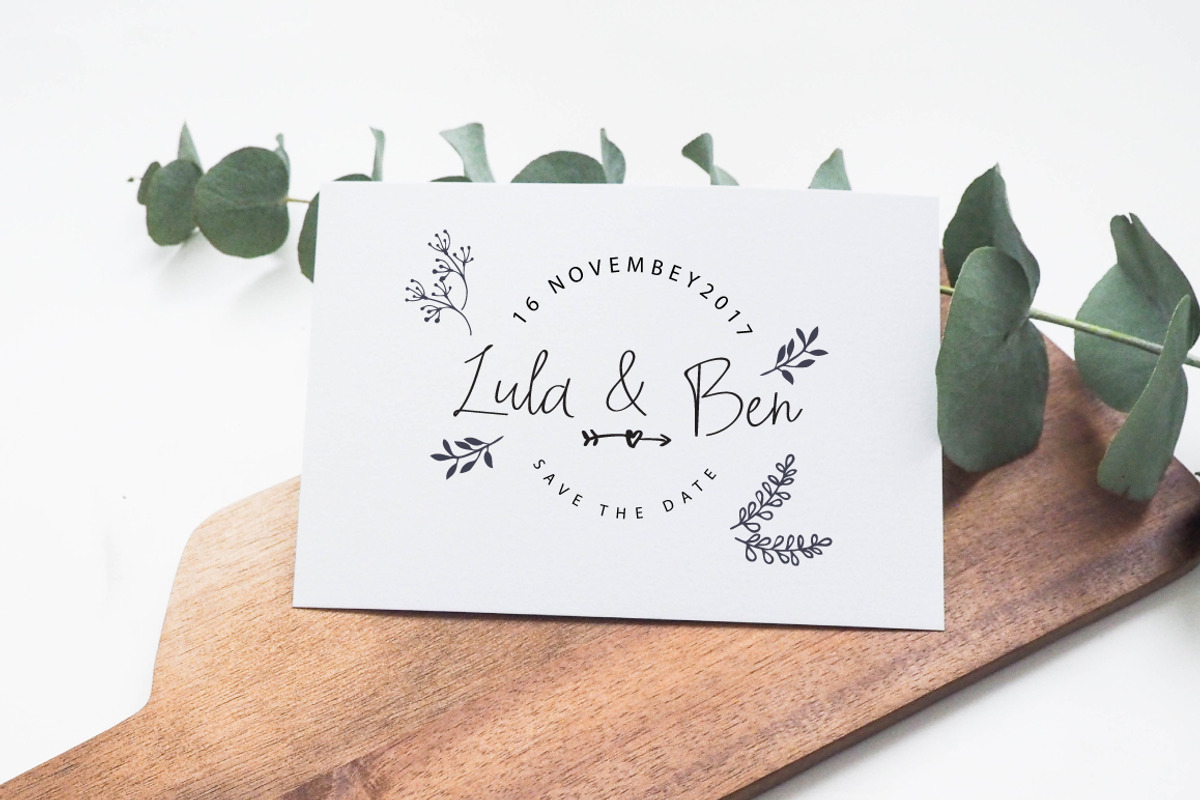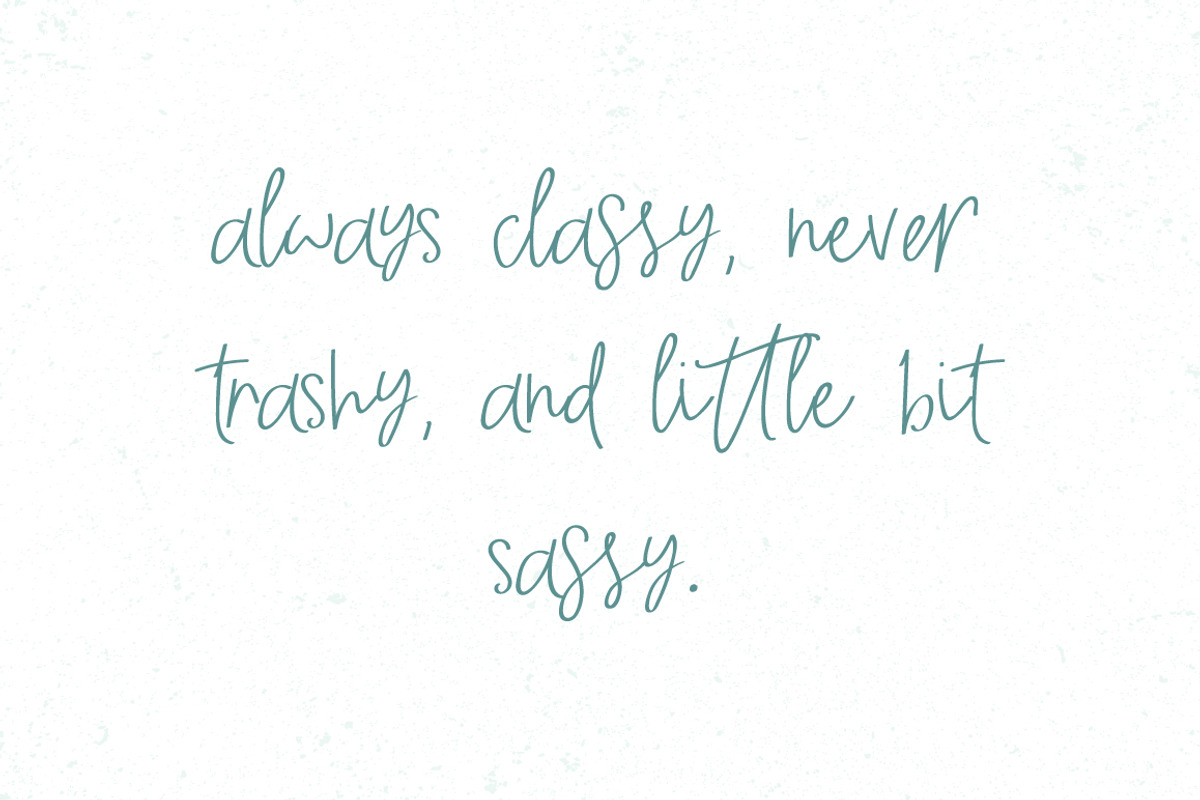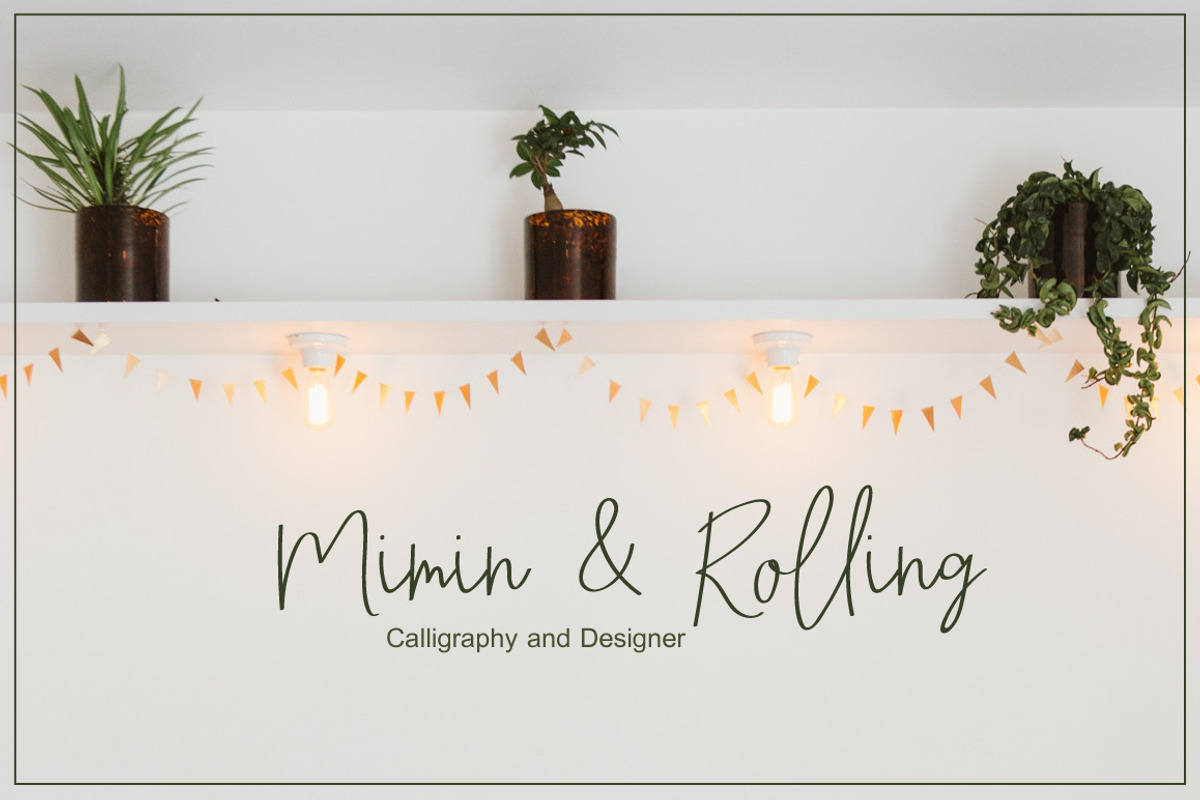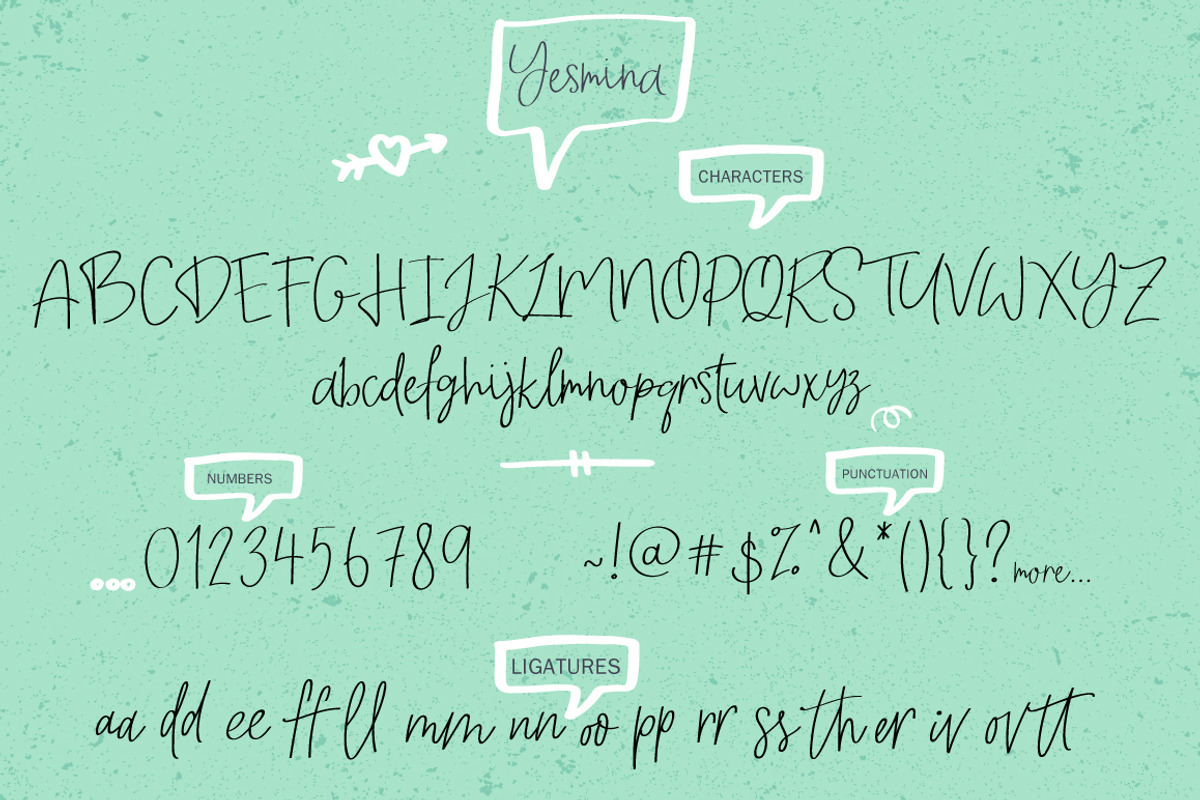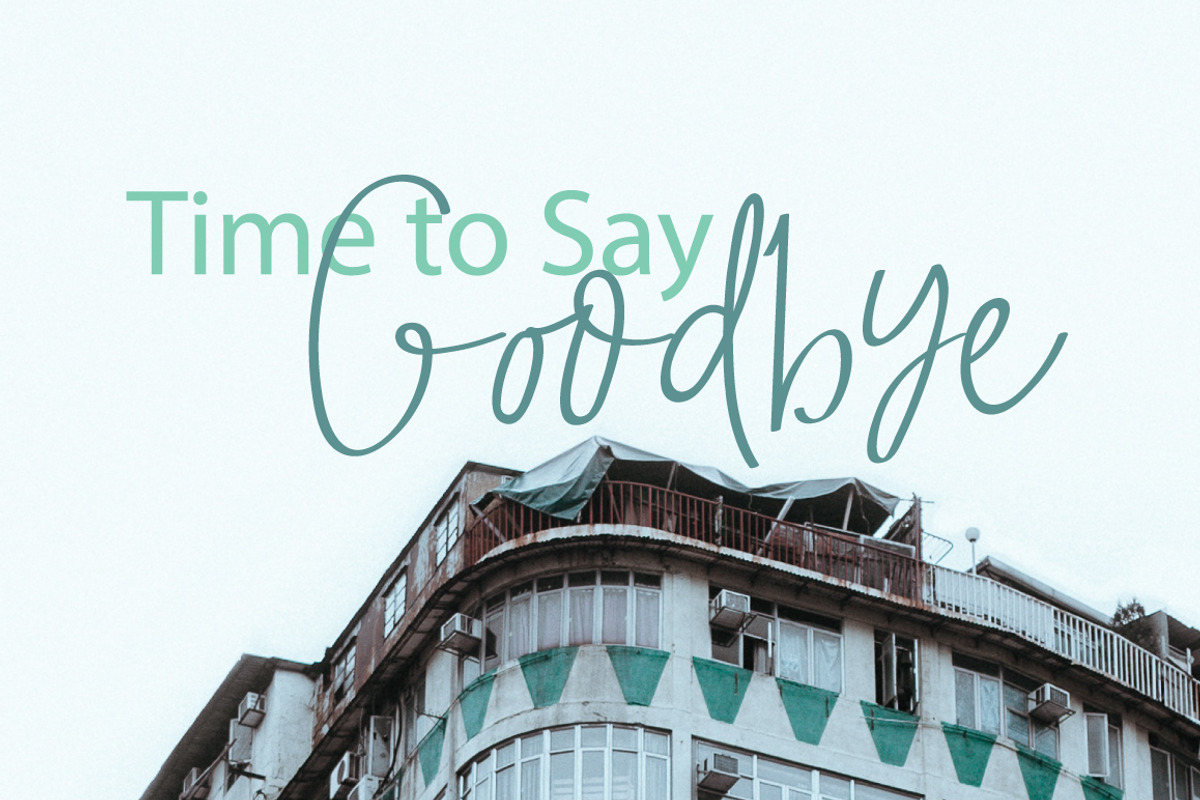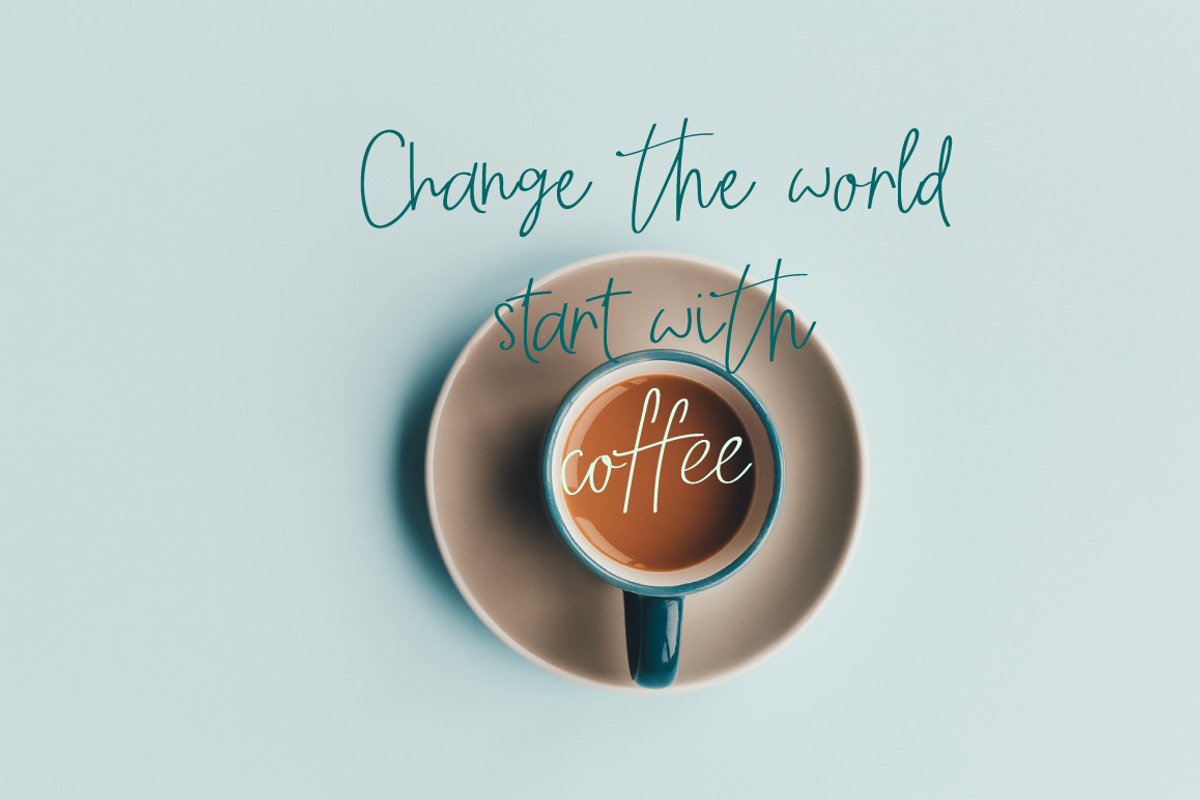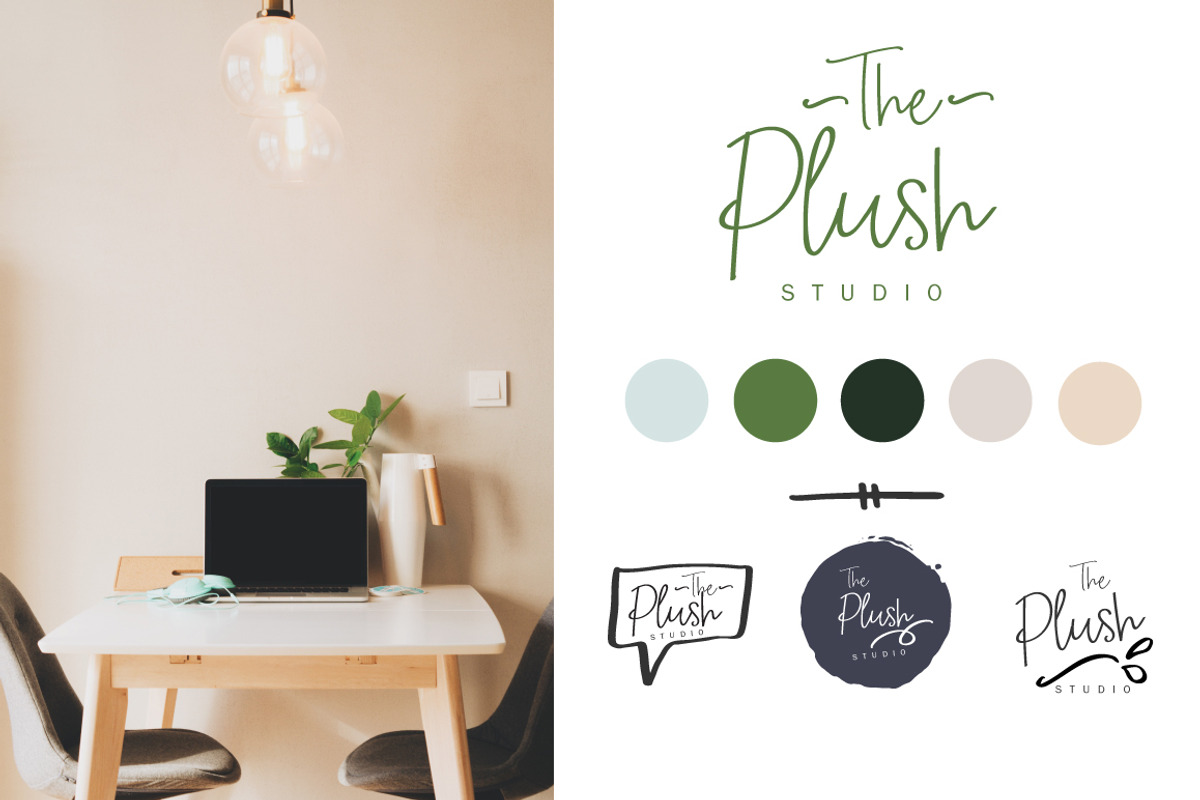
Yesmina | Font & Logos + Doodle
Yesmina Introducing Yesmina, It's a fashion-forward font perfect for wedding invitation or your blog, social media posts, and messages.